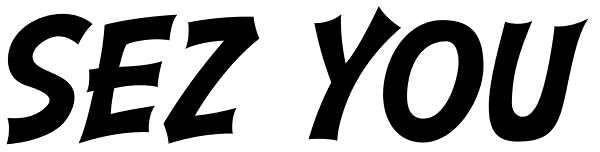
Sez
Hand-crafted by Richard Starkings in the classic style of Will Eisner’s The Spirit, this free and easy font made its debut in the pages of...The Spirit! Never let it be said that those awfully nice chaps at Comicraft don't think about what they're...
Sez You
Sez Who